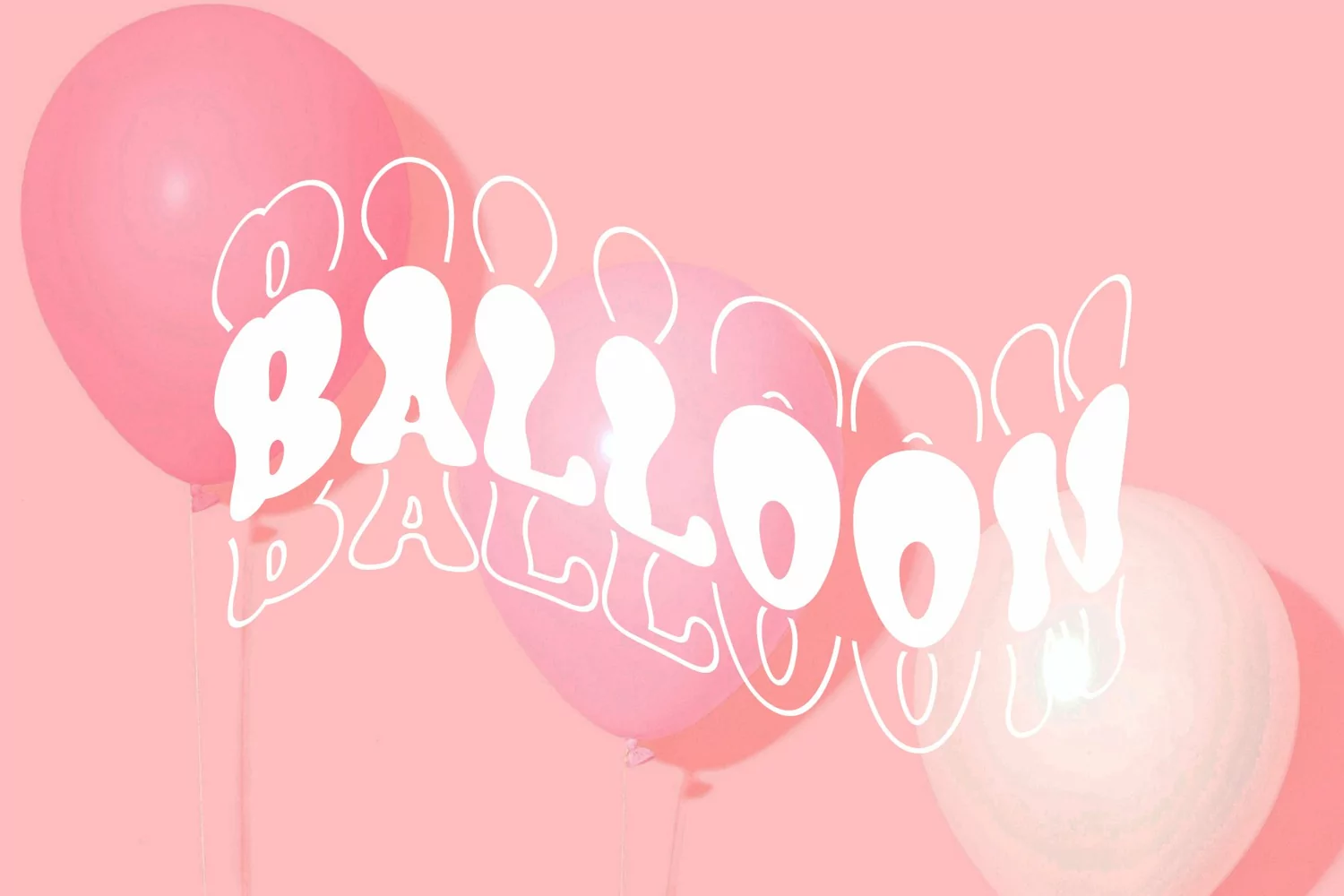
Hippie is stacked font with retro and vintage style. The character itself is from my other font, Retro Mine (https://fontbundles.net/airotype/1857329-retro-mine-modern-groovy-vintage-font)
This is all caps stacked font. Uppercase is outline stacked, and lowercase is solid stacked.
+Uppercase (outline stacked) and Lowercase (solid stacked)
+Number
HippieStacked